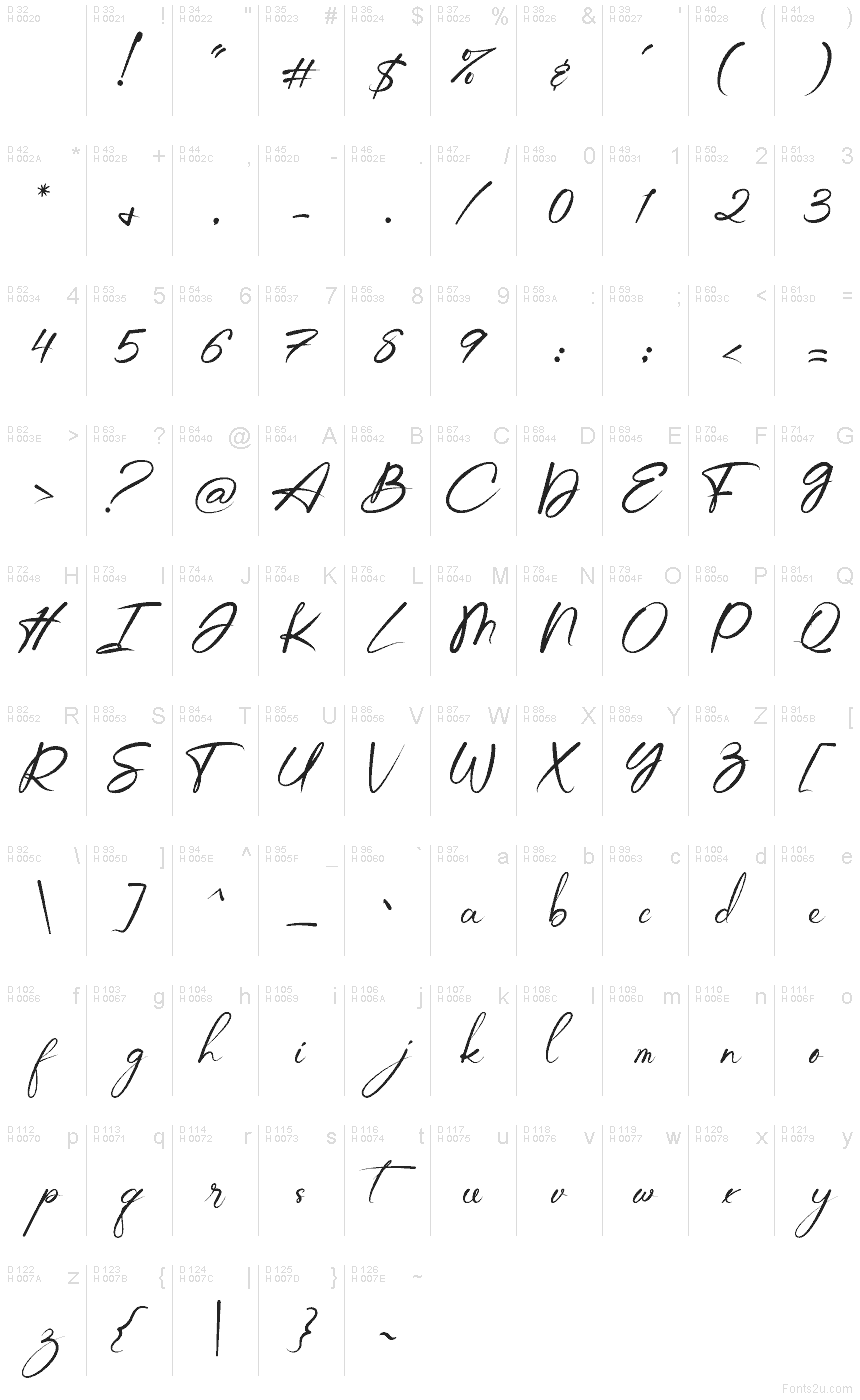
Jocelyn Sadnight
Jocelyn Sadnight font by Alvin Hidayat is a free handwritten font that elegantly captures an authentic handwritten expression with its flowing letter strokes. Its sophisticated style and graceful movement make it stand out as the perfect modern script, perfect for those who enjoy delicate hand letterings.
Use Jocelyn Sadnight in all your special event cards, invitations to weddings and baby showers, restaurant branding designs, logos, typography quotes, book covers, poster headers, packaging projects but also simple magazine and newspaper titles.